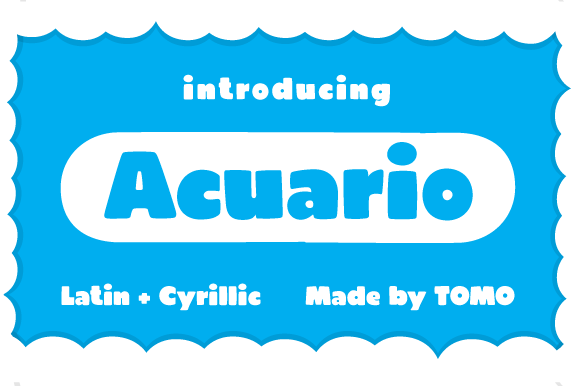
Acuario Font: The Perfect Choice for Kids-Themed Projects
Acuario Font is a strong display font that’s fun and friendly, making it an ideal choice for any kids-themed project. Its unique and playful design is sure to capture the attention of your audience, whether you’re working on a children’s book, a kids’ website, or a craft project. In this article, we’ll take a closer look at Acuario Font and explore its features, benefits, and uses.
What is Acuario Font?
Acuario Font is a display font designed to make a statement. Its bold and bubbly design is perfect for headlines, titles, and other prominent text elements. The font is characterized by its rounded edges, smooth curves, and friendly demeanor, giving it a youthful and energetic feel.
Features of Acuario Font
- Unique Design: Acuario Font has a distinctive design that’s both fun and engaging. Its rounded edges and smooth curves give it a soft and approachable feel.
- Strong Display Font: Acuario Font is a strong display font that’s perfect for headlines, titles, and other prominent text elements.
- Kids-Themed: Acuario Font is specifically designed for kids-themed projects, making it an ideal choice for children’s books, kids’ websites, and craft projects.
- Easy to Read: Despite its bold design, Acuario Font is easy to read, even at smaller sizes.
Benefits of Using Acuario Font
There are several benefits to using Acuario Font in your kids-themed projects. Here are a few:
- Grabs Attention: Acuario Font is designed to grab attention and make a statement. Its bold and playful design is sure to capture the attention of your audience.
- Adds Personality: Acuario Font adds a touch of personality to your project, making it more engaging and fun.
- Versatile: Acuario Font is versatile and can be used in a variety of projects, from children’s books to kids’ websites and craft projects.
Uses of Acuario Font
Acuario Font is perfect for a variety of kids-themed projects, including:
- Children’s Books: Acuario Font is perfect for children’s books, adding a touch of fun and personality to your story.
- Kids’ Websites: Acuario Font is a great choice for kids’ websites, making your content more engaging and fun.
- Craft Projects: Acuario Font is perfect for craft projects, such as making cards, gift tags, and other DIY projects.
- Signs and Posters: Acuario Font is a great choice for signs and posters, making your message more prominent and eye-catching.
Tips for Using Acuario Font
Here are a few tips for using Acuario Font in your projects:
- Use it Sparingly: Acuario Font is a bold font, so use it sparingly to avoid overwhelming your audience.
- Pair it with Other Fonts: Acuario Font pairs well with other fonts, so experiment with different combinations to find the perfect look.
- Experiment with Colors: Acuario Font looks great in a variety of colors, so experiment with different colors to find the perfect look.
Acuario Font is a strong display font that’s fun and friendly, making it an ideal choice for any kids-themed project. Its unique and playful design is sure to capture the attention of your audience, and its versatility makes it perfect for a variety of projects. With its ease of use and range of benefits, Acuario Font is a great choice for designers and crafters looking to add a touch of personality to their projects.